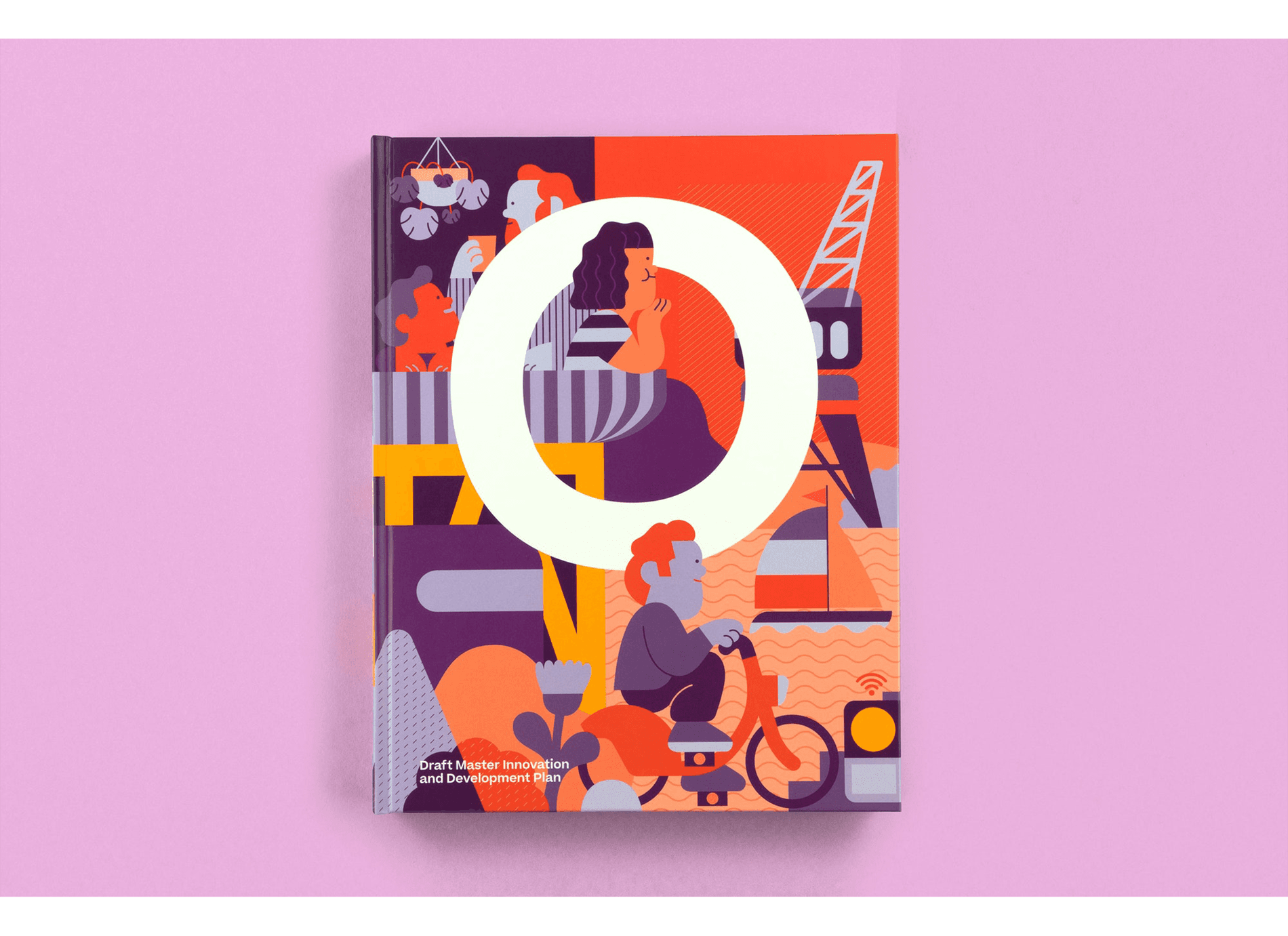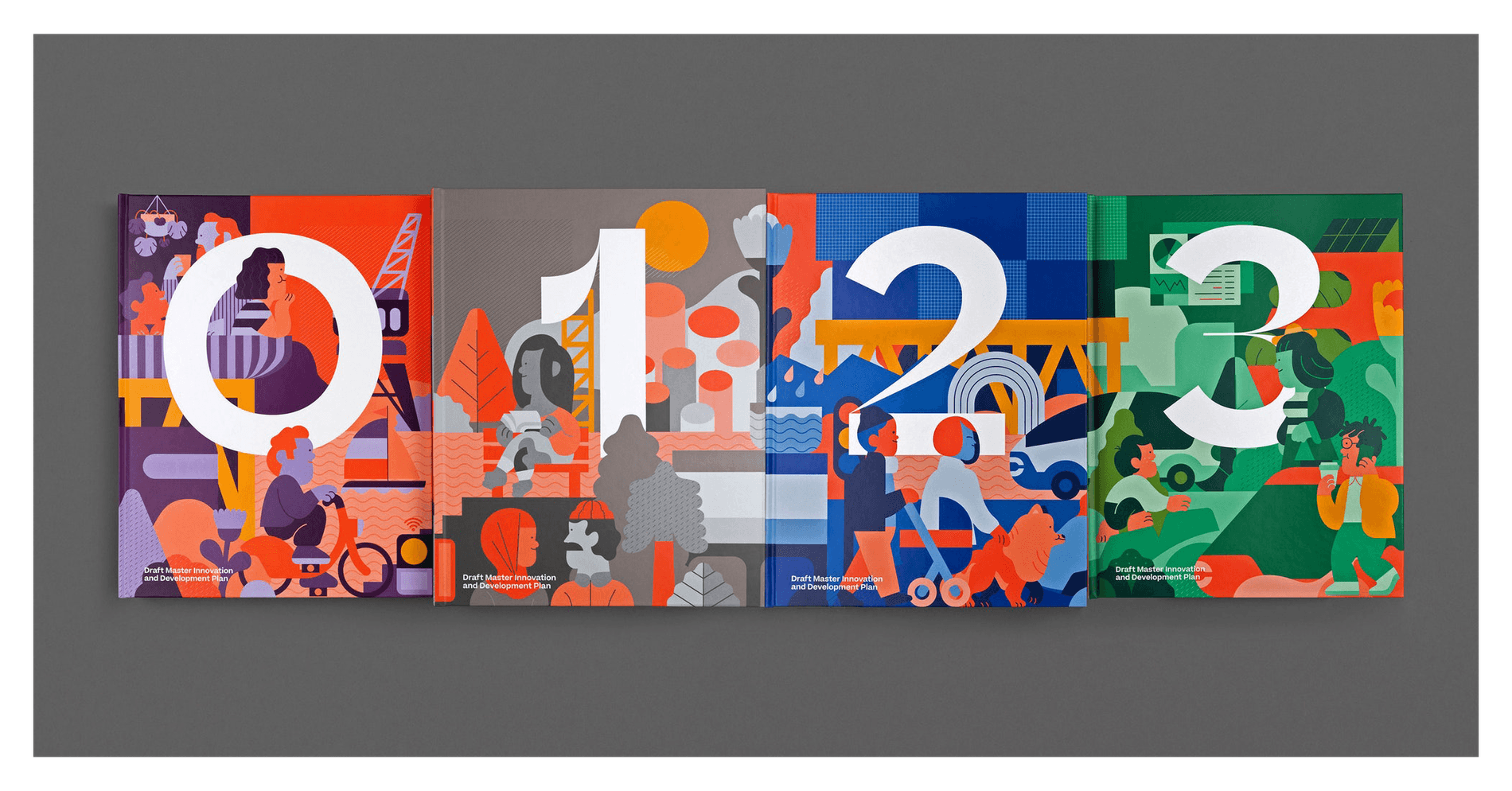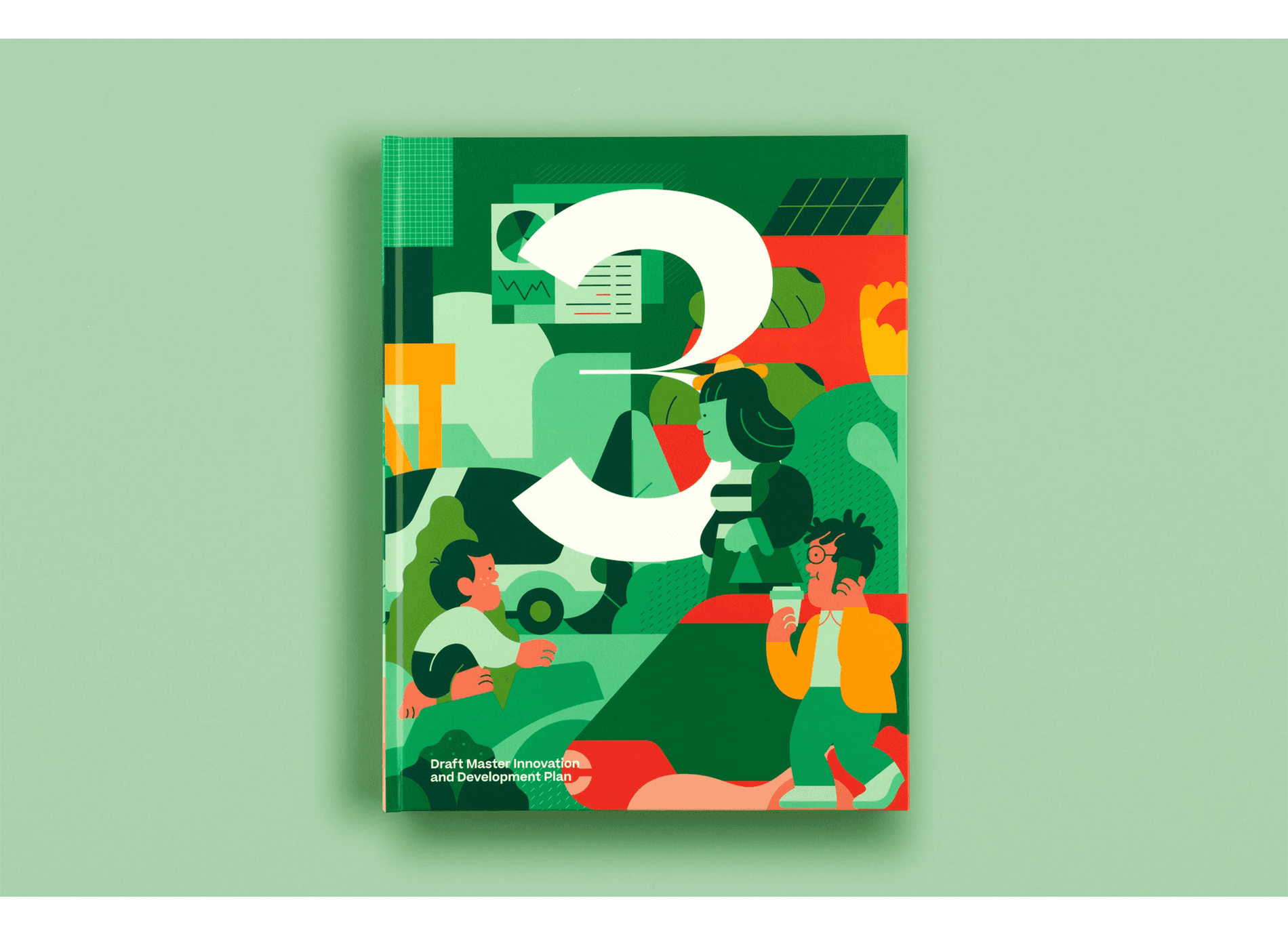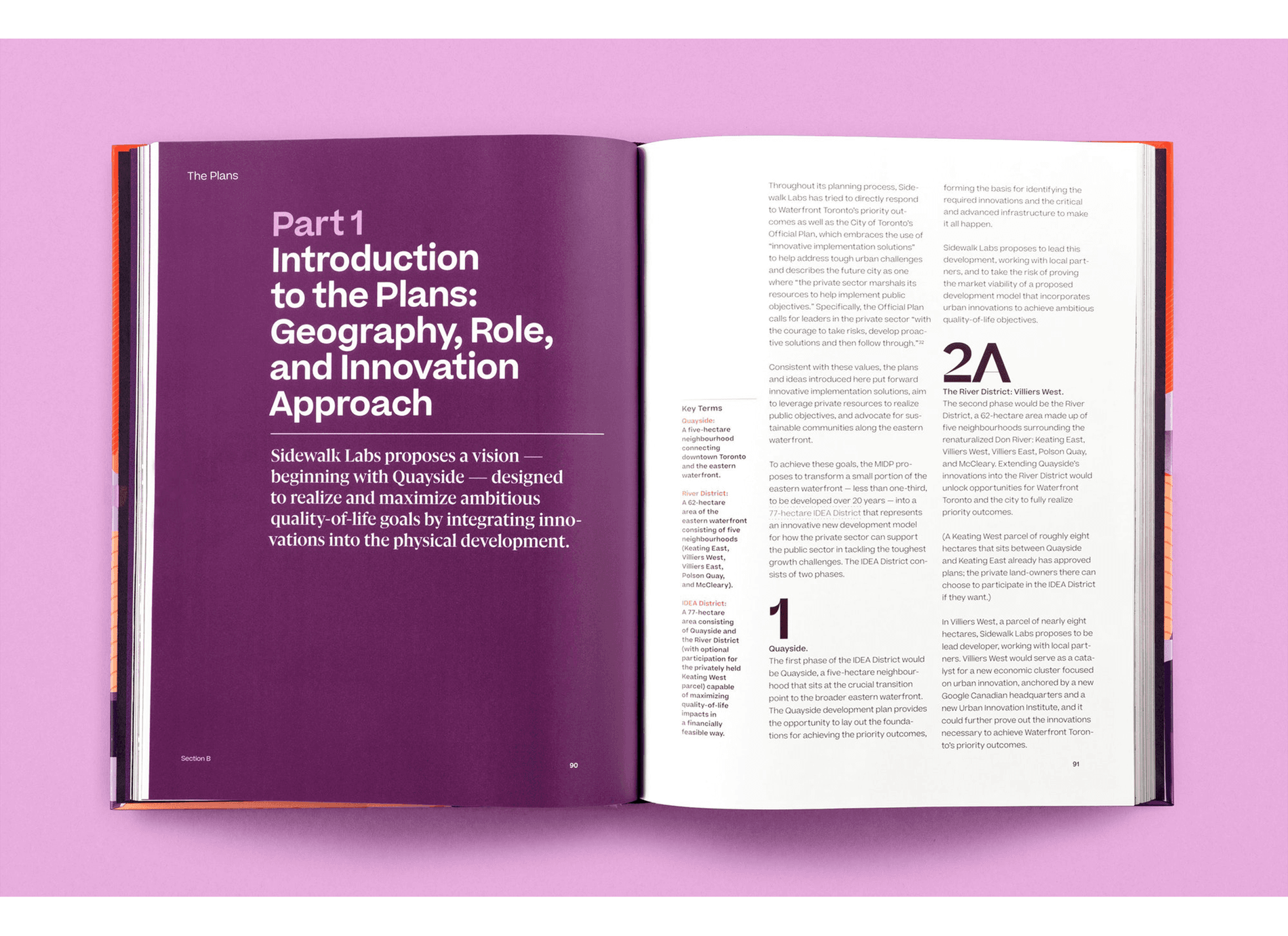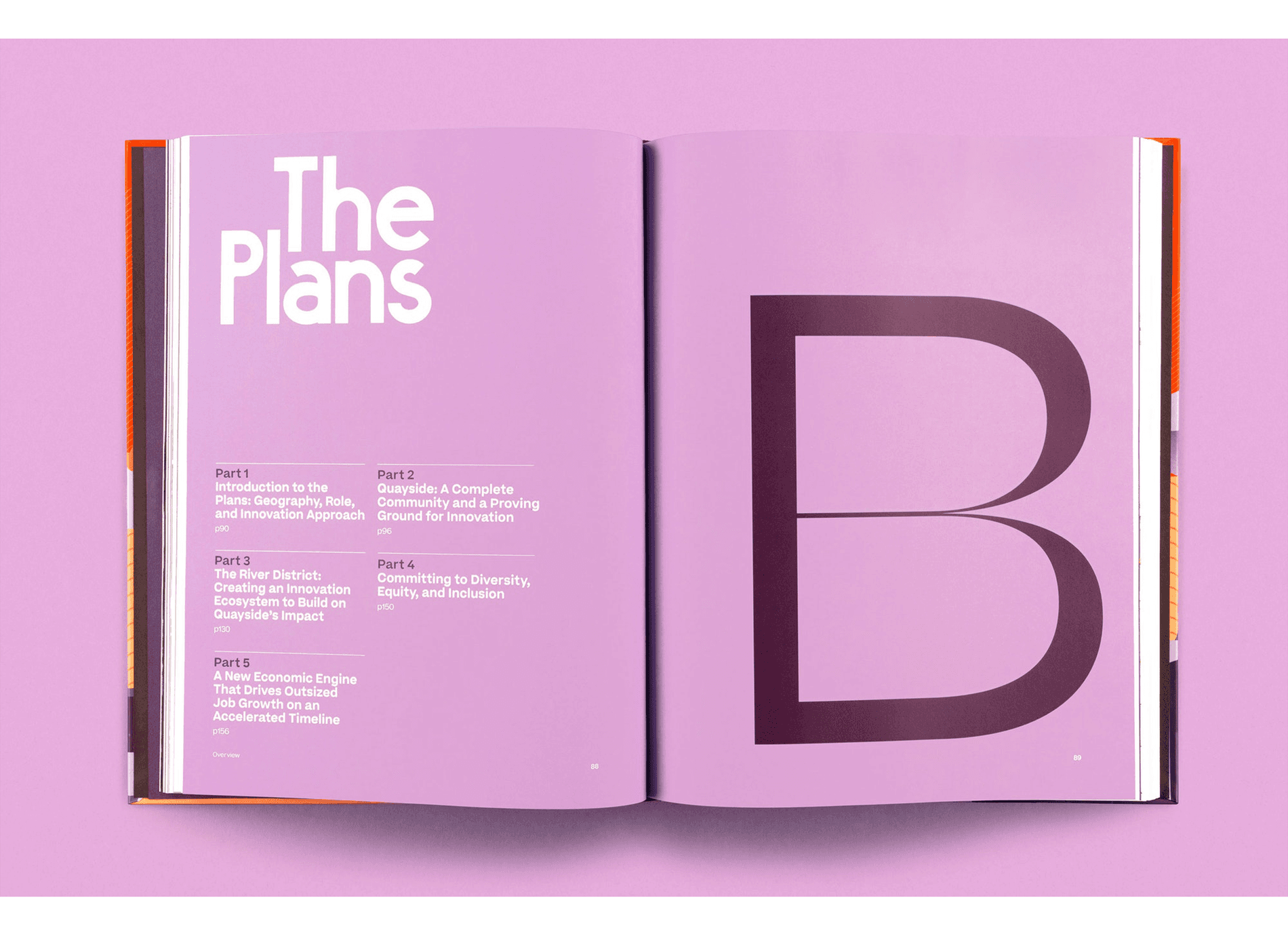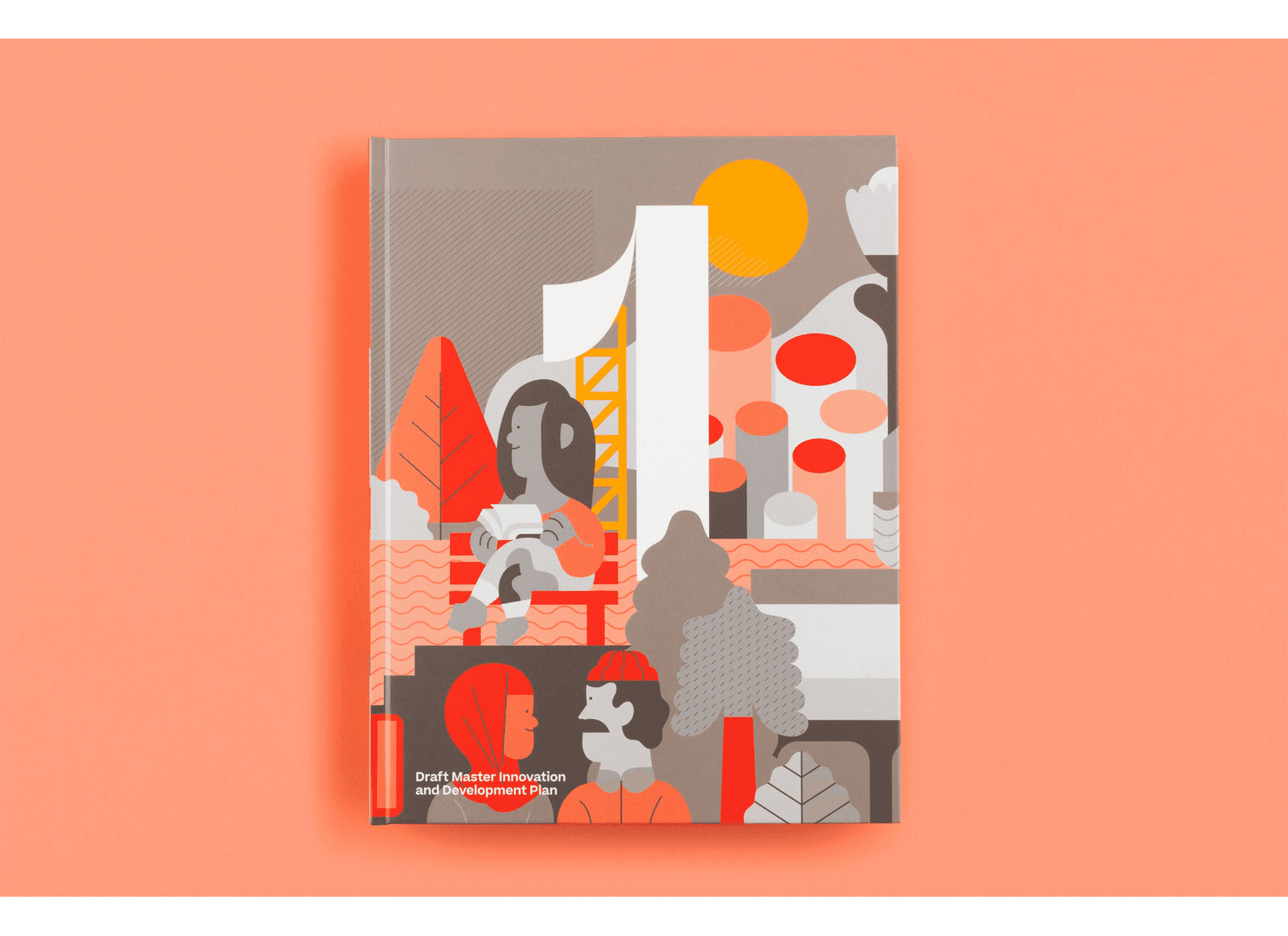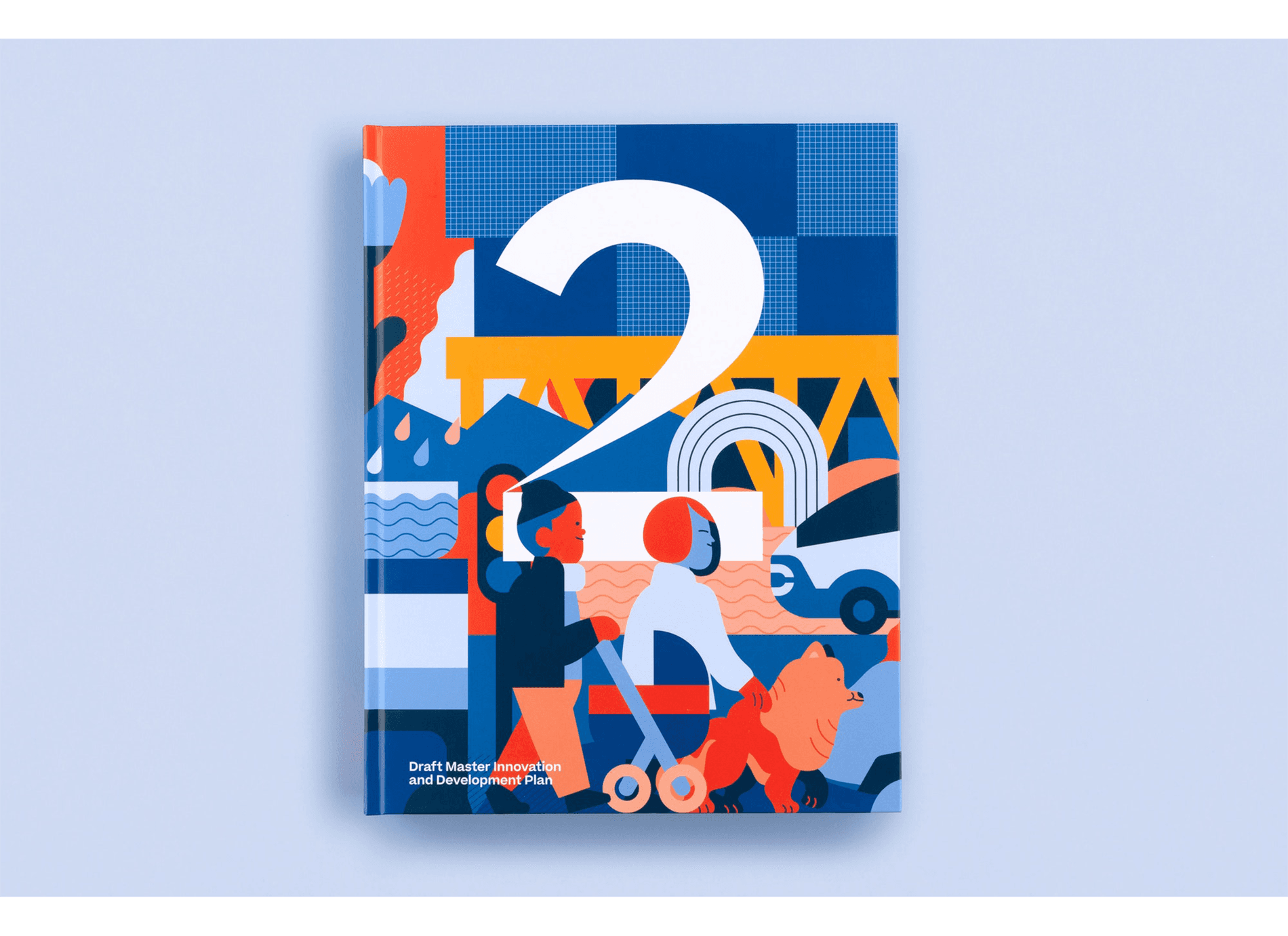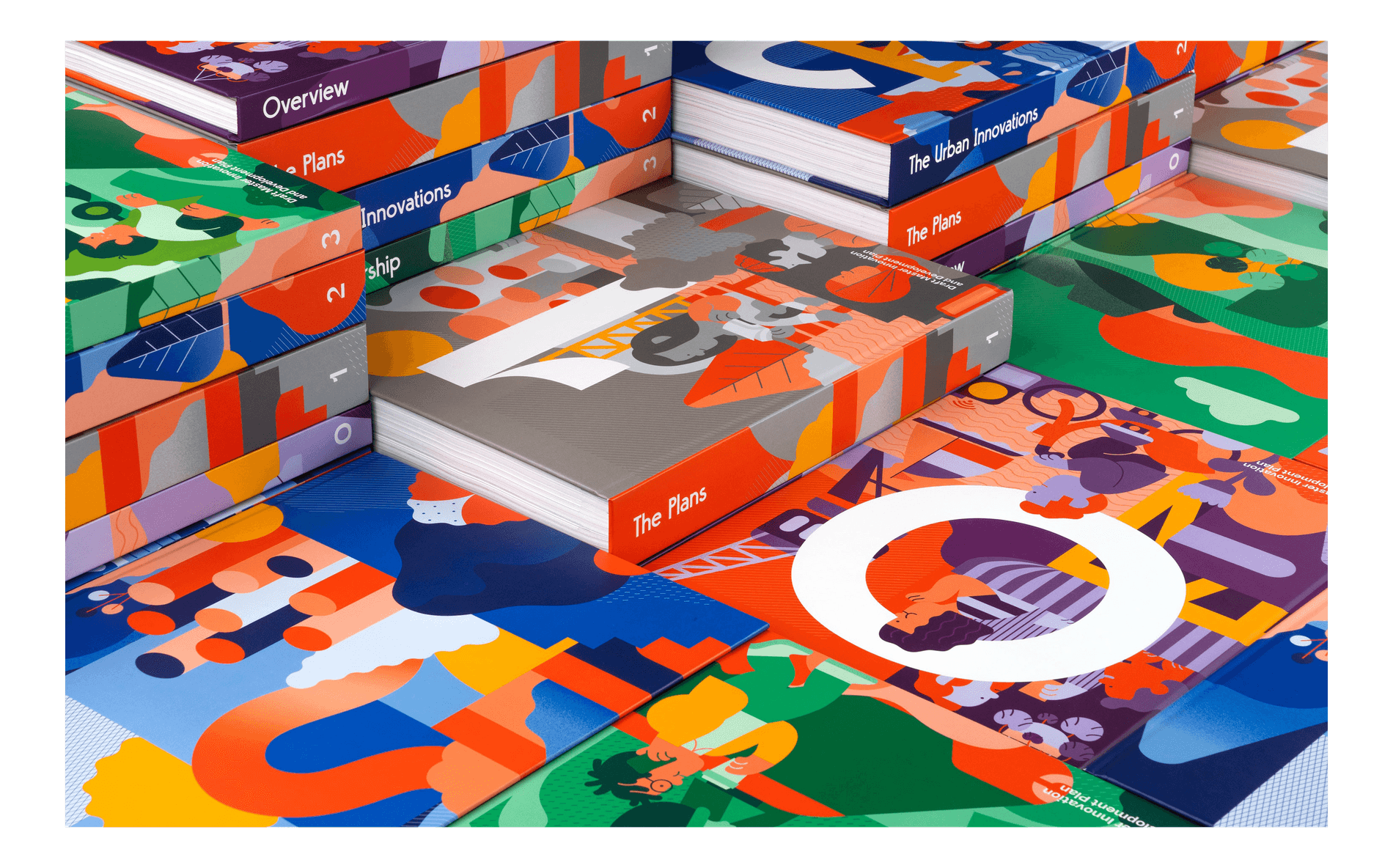
Sidewalk Labs is an urban-innovation organization based in New York. In 2019, they released “Toronto Tomorrow” a proposal to transform Toronto’s Waterfront district into a high-tech, innovative community. Eddie Opara’s team at Pentagram was tasked to design the four-volume, 1,500-page document.
According to Pentagram, “The designers wanted a typographic tone of voice somewhere between sharp and technological and warm and human. They looked at the expressive differences between serif and sans serif font, ultimately selecting both, but in unconventional choices.” Alongside other typefaces, the team chose to use Beatrice for text and body copy, and numerals from Beatrice Display.
Typeface: Beatrice Display & Beatrice